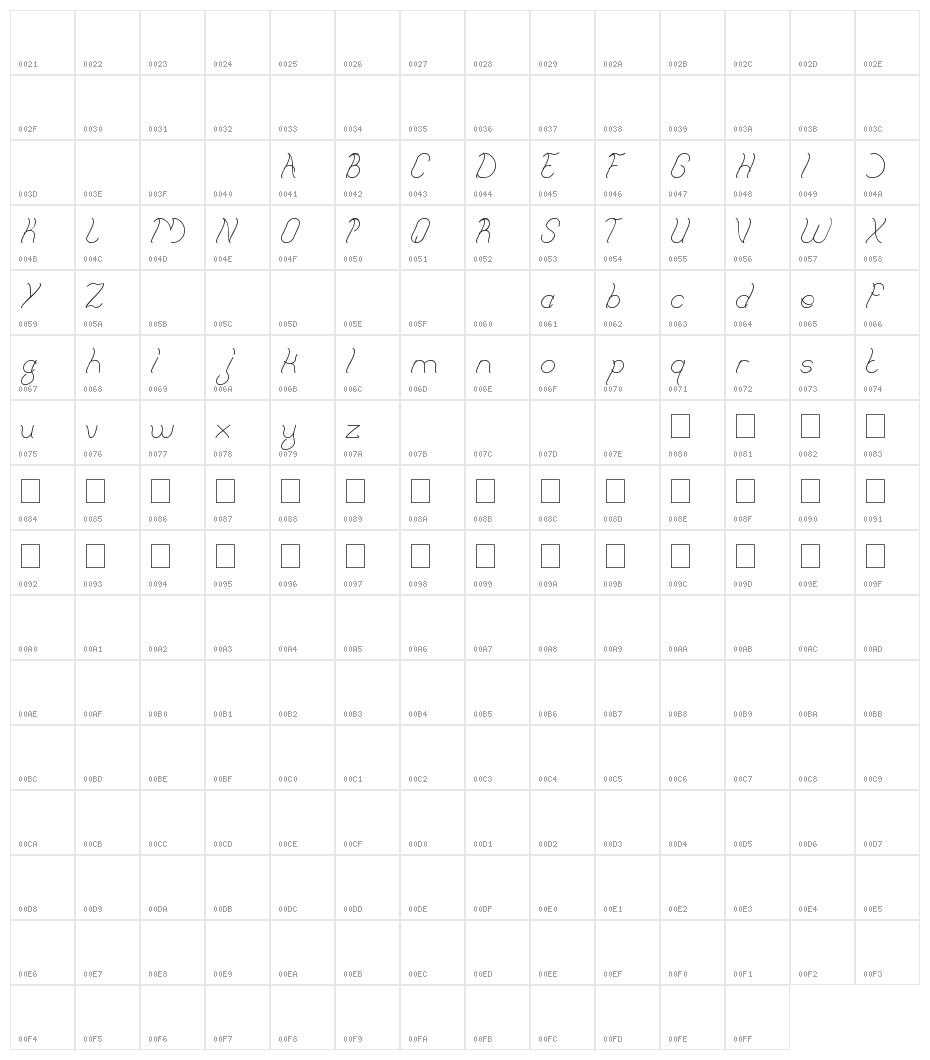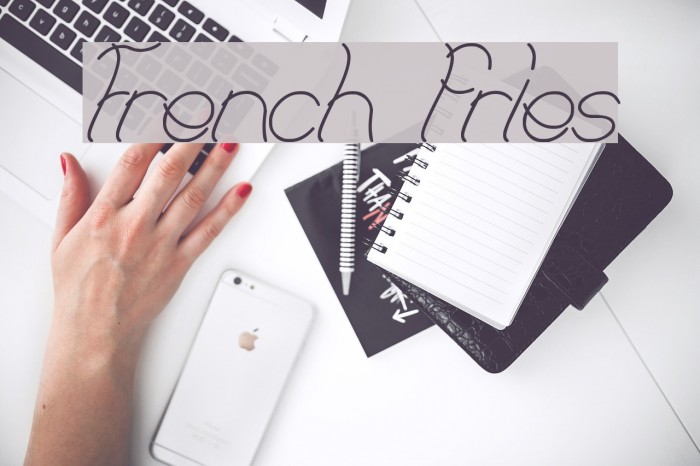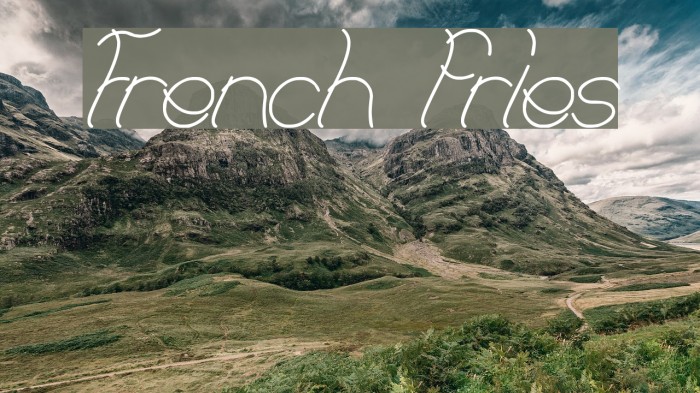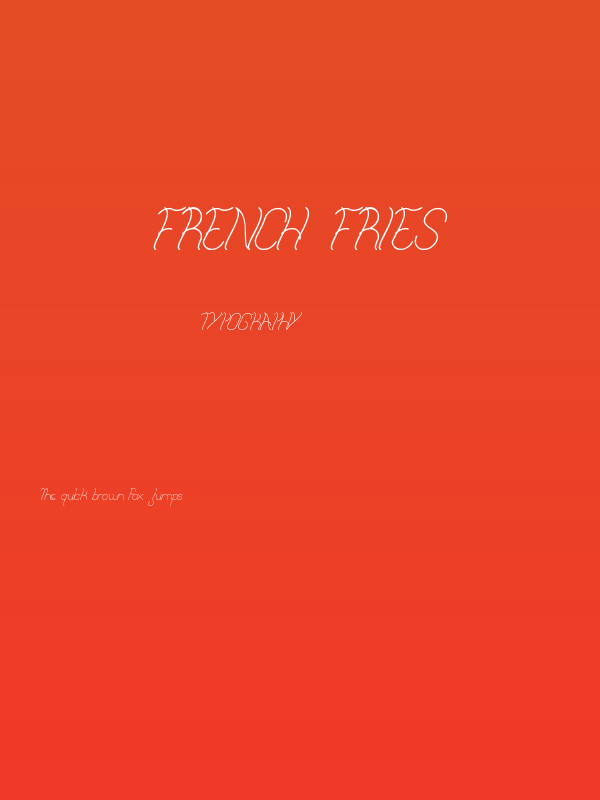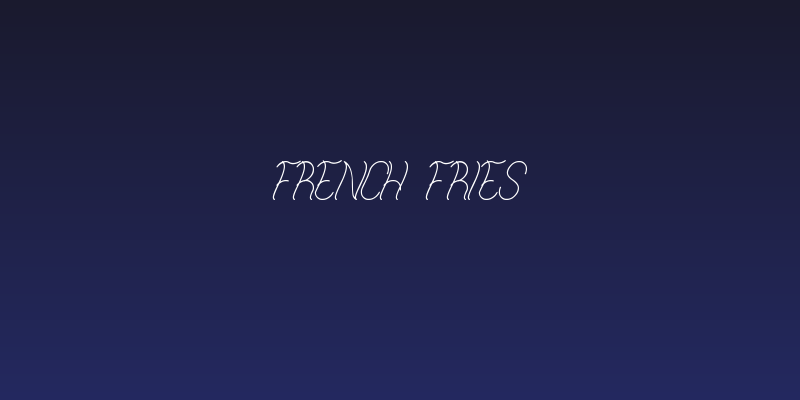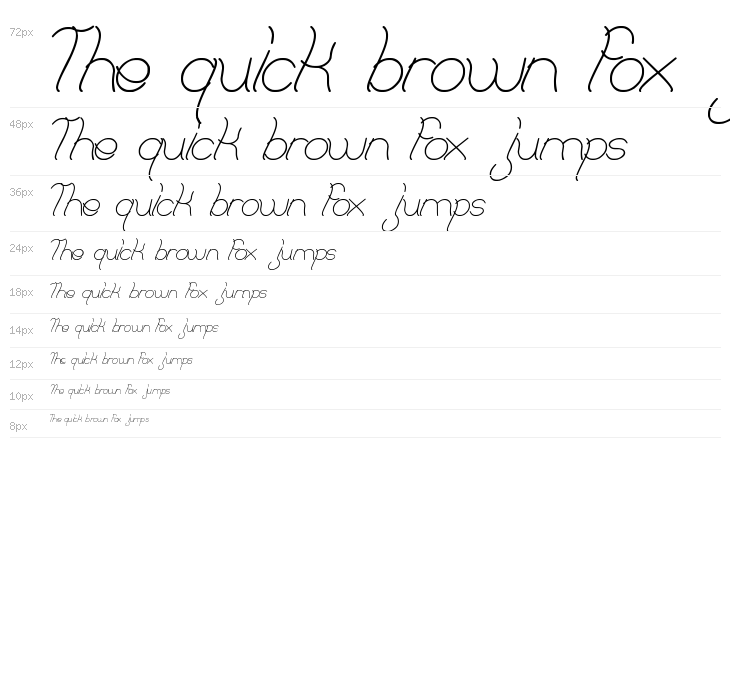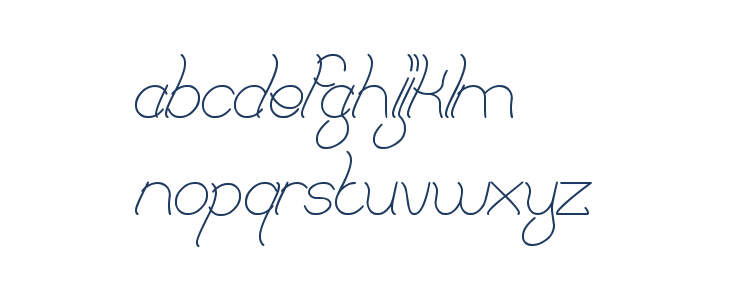
French fries Font
French fries Description
This font features an elegant and flowing script style, characterized by its thin, delicate lines and graceful curves. The uppercase letters exhibit a sophisticated flair with elongated strokes, while the lowercase letters maintain a consistent fluidity, enhancing readability. The font's design is reminiscent of classic calligraphy, yet it maintains a modern touch with its clean and uncluttered appearance. The numerals and special characters are crafted with the same attention to detail, ensuring a cohesive look across all text elements.